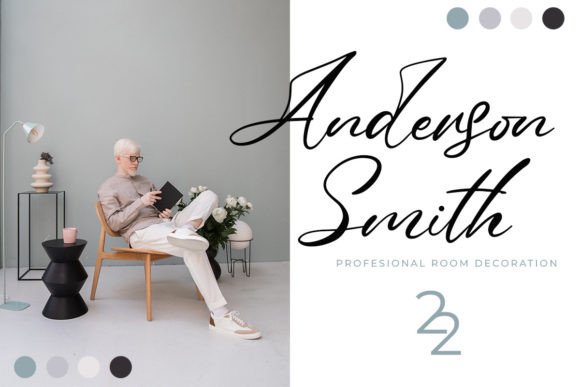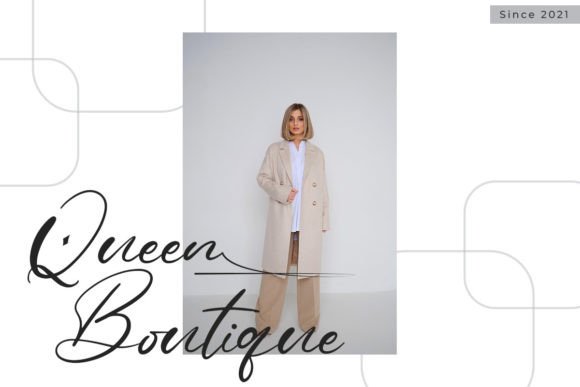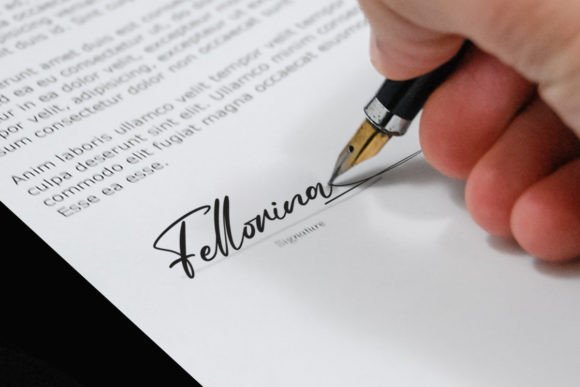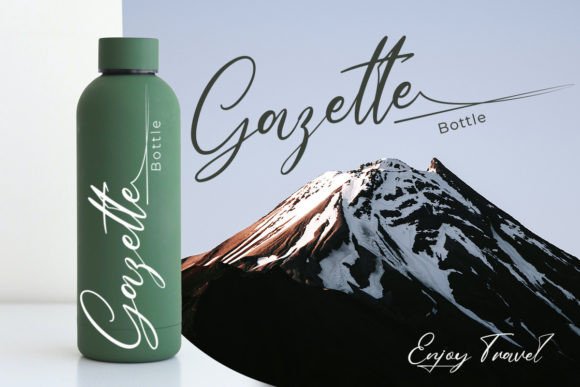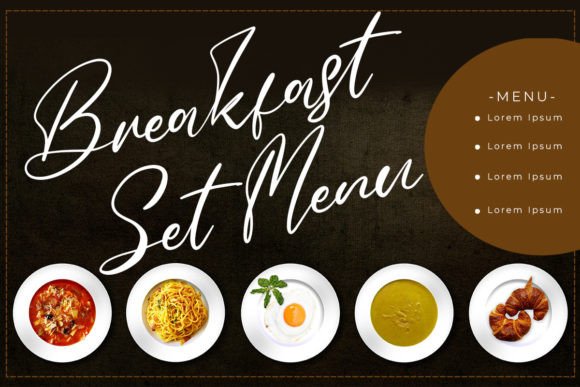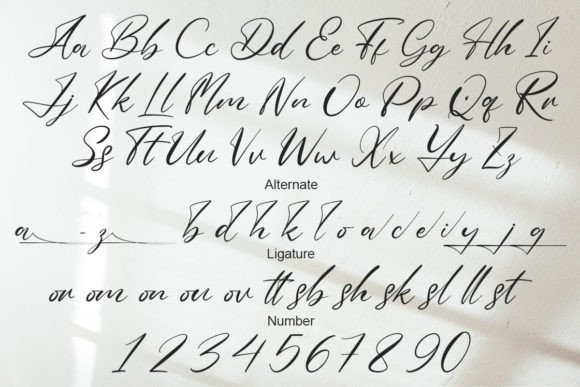
Introducing Helleglone Signature Font: Elevate Your Designs with Elegance
Are you a designer, crafty individual, or simply someone who appreciates the art of typography? Look no further! We’re excited to introduce the Helleglone Signature Font, a dazzling script font that is sure to become a prized addition to your font library. With its meticulous craftsmanship and attention to detail, this font is poised to elevate your creations to new heights.
What Makes Helleglone Signature Font Stand Out?
Helleglone Signature is not just another script font; it’s a masterpiece that combines elegance with versatility. Its highly detailed and neatly crafted design ensures that it can be applied to a wide range of topics and projects. Whether you’re working on a branding project, crafting beautiful wedding invitations, designing engaging social media graphics, or creating stunning product labels, this font will undoubtedly enhance your work.
One of the standout features of the Helleglone Signature Font is its PUA (Private Use Area) encoding. This means that accessing all the glyphs and swashes is incredibly straightforward. PUA encoding allows designers to access a wide range of additional characters and ligatures that are not available in standard fonts, providing more creative freedom and flexibility. With Helleglone Signature, you can easily incorporate intricate details and flourishes into your designs, making them truly unique and eye-catching.
Applications of Helleglone Signature Font
The versatility of Helleglone Signature Font makes it suitable for a myriad of applications. Here are a few ideas to get you started:
- Branding and Logos: Create a lasting impression with a custom logo that exudes elegance and sophistication.
- Wedding and Event Stationery: Add a touch of class to your wedding invitations, save-the-date cards, and other event materials.
- Social Media Graphics: Stand out on social media platforms with beautifully designed graphics that incorporate the Helleglone Signature Font.
- Product Packaging: Elevate your product labels and packaging with a font that communicates luxury and quality.
- Advertising and Marketing Materials: Use the font in your brochures, flyers, and posters to add a level of refinement and professionalism.
Why Choose Helleglone Signature Font?
In a world where first impressions matter, choosing the right font for your project can make all the difference. Here are a few reasons why Helleglone Signature Font should be your go-to choice:
- Unique and Memorable: The distinctive design of Helleglone Signature ensures that your work will be memorable and stand out from the crowd.
- Elegant and Versatile: Its elegant appearance and versatile nature make it suitable for a wide range of projects and themes.
- Easy to Use: Thanks to PUA encoding, using and customizing the font is hassle-free, even for those with limited design experience.
Helleglone Signature Font is more than just a script font; it’s a tool that can transform your designs and elevate your creative projects. With its dazzling appearance, meticulous craftsmanship, and ease of use, it’s an asset that every designer and crafter should have in their toolkit. Whether you’re looking to add a touch of elegance to your branding, create stunning event stationery, or simply explore new typography options, Helleglone Signature Font is an excellent choice. So why wait? Discover the creative possibilities that Helleglone Signature Font has to offer and take your designs to the next level.